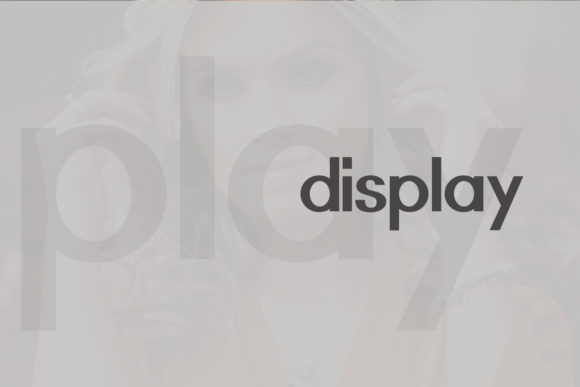
Ampere Font: A Modern Sans Serif Font for Outstanding Headlines
In the world of typography, fonts play a crucial role in conveying messages and setting the tone for a brand or design. With the numerous font options available, finding the perfect one that stands out from the crowd can be a daunting task. However, if you’re looking for a modern sans serif font that can make your headlines shine, look no further than Ampere Font. In this article, we’ll dive into the world of Ampere Font, exploring its features, benefits, and uses.
What is Ampere Font?
Ampere Font is a modern sans serif font designed to make a statement. Its clean lines, precise curves, and geometric shapes make it a versatile font suitable for a wide range of design applications. Whether you’re working on a logo, headline, or body text, Ampere Font is engineered to deliver exceptional results.
Key Features of Ampere Font
Ampere Font boasts several key features that make it an attractive option for designers:
- Modern sans serif design: Ampere Font features a sleek, contemporary design that exudes professionalism and sophistication.
- Geometric shapes: The font’s geometric shapes provide a sense of stability and balance, making it perfect for logos, icons, and graphics.
- Clean lines and precise curves: Ampere Font’s clean lines and precise curves ensure that the font remains legible, even at small sizes.
- Versatile: Ampere Font is suitable for a wide range of design applications, from headlines and body text to logos and icons.
Benefits of Using Ampere Font
So, why choose Ampere Font for your design projects? Here are some benefits that make it an excellent choice:
- Improved readability: Ampere Font’s clean design and precise curves ensure that your text remains readable, even on busy backgrounds.
- Enhanced visual appeal: The font’s modern sans serif design and geometric shapes add a touch of sophistication and elegance to your designs.
- Flexibility: Ampere Font is suitable for a wide range of design applications, making it a versatile addition to your font library.
- Unique look: Ampere Font’s distinctive design ensures that your headlines and text stand out from the crowd.
Using Ampere Font in Different Contexts
One of the standout features of Ampere Font is its ability to perform well in various contexts. Here are some examples of how you can use Ampere Font in different design applications:
- Headlines: Ampere Font is perfect for creating eye-catching headlines that grab attention.
- Body text: The font’s clean design and legibility make it suitable for body text, ensuring that your readers can easily read and understand your content.
- Logos and branding: Ampere Font’s geometric shapes and modern sans serif design make it an excellent choice for logos and branding materials.
- Digital and print media: Ampere Font is suitable for both digital and print media, making it a versatile addition to your font library.
Tips for Using Ampere Font Effectively
To get the most out of Ampere Font, here are some tips to keep in mind:
- Pair with complementary fonts: Ampere Font pairs well with other sans serif fonts, as well as serif fonts with a similar geometric aesthetic.
- Experiment with font sizes: Ampere Font remains legible at small sizes, making it perfect for body text. However, it’s also suitable for large headlines and titles.
- Use contrasting colors: Ampere Font’s clean design ensures that it stands out on busy backgrounds. Experiment with contrasting colors to create visually appealing combinations.
In conclusion, Ampere Font is a modern sans serif font that offers a unique combination of style, versatility, and legibility. Its clean lines, precise curves, and geometric shapes make it perfect for a wide range of design applications, from headlines and body text to logos and branding materials. Whether you’re a designer, marketer, or entrepreneur, Ampere Font is an excellent addition to your font library.